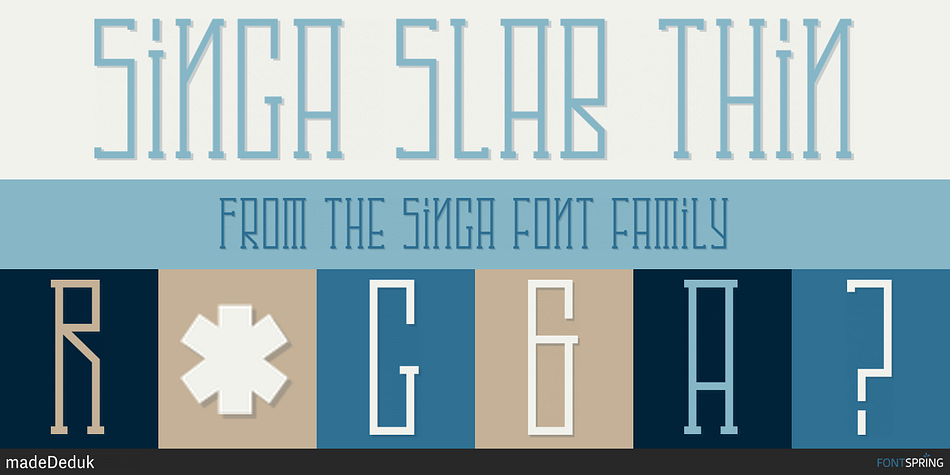
Singa Slab Thin
Designed by Suandana Ipandemade, Singa is a multiple classification font family. This typeface has fifty-four styles and was published by madeDeduk.
Introducing Singa is a three distinct classic casual family comes with 9 variable weight to get more stunning. Use this font family for any branding, product packaging, invitation, quotes, t-shirt, label, poster, logo etc.
- Alternative & Ligatures
Styles Display, Display Slab
Designer Suandana Ipandemade